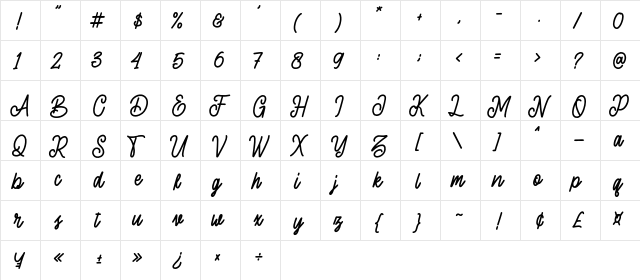
Sherly Shane Regular
Design Context for Sherly Shane Typeface
Sherly Shane is a composed and adaptable typeface that performs quietly and consistently across a wide range of design contexts.